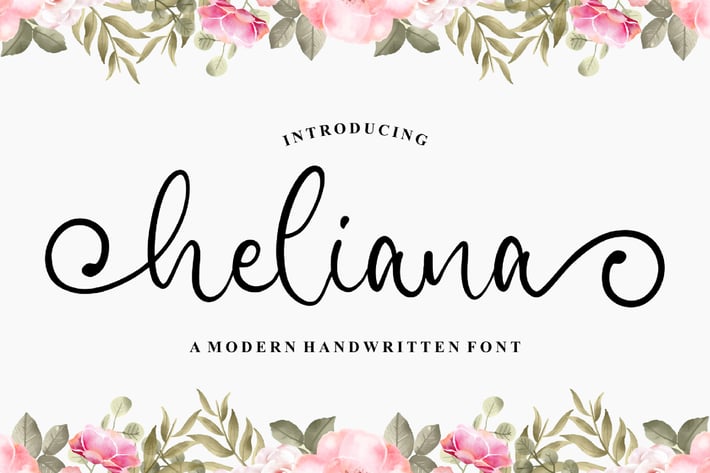
Heliana - Wedding Font
Heliana is an elegant and dainty handwritten font that features sweet and delicate swashes. This original look will appeal to a wide range of crafty ideas, from letterheads and titles, to stationery.
Modern Handwritten Font
Beautiful Swash (Ending tail)
Beautiful Titling (Beginning tail)
Special Ligatures